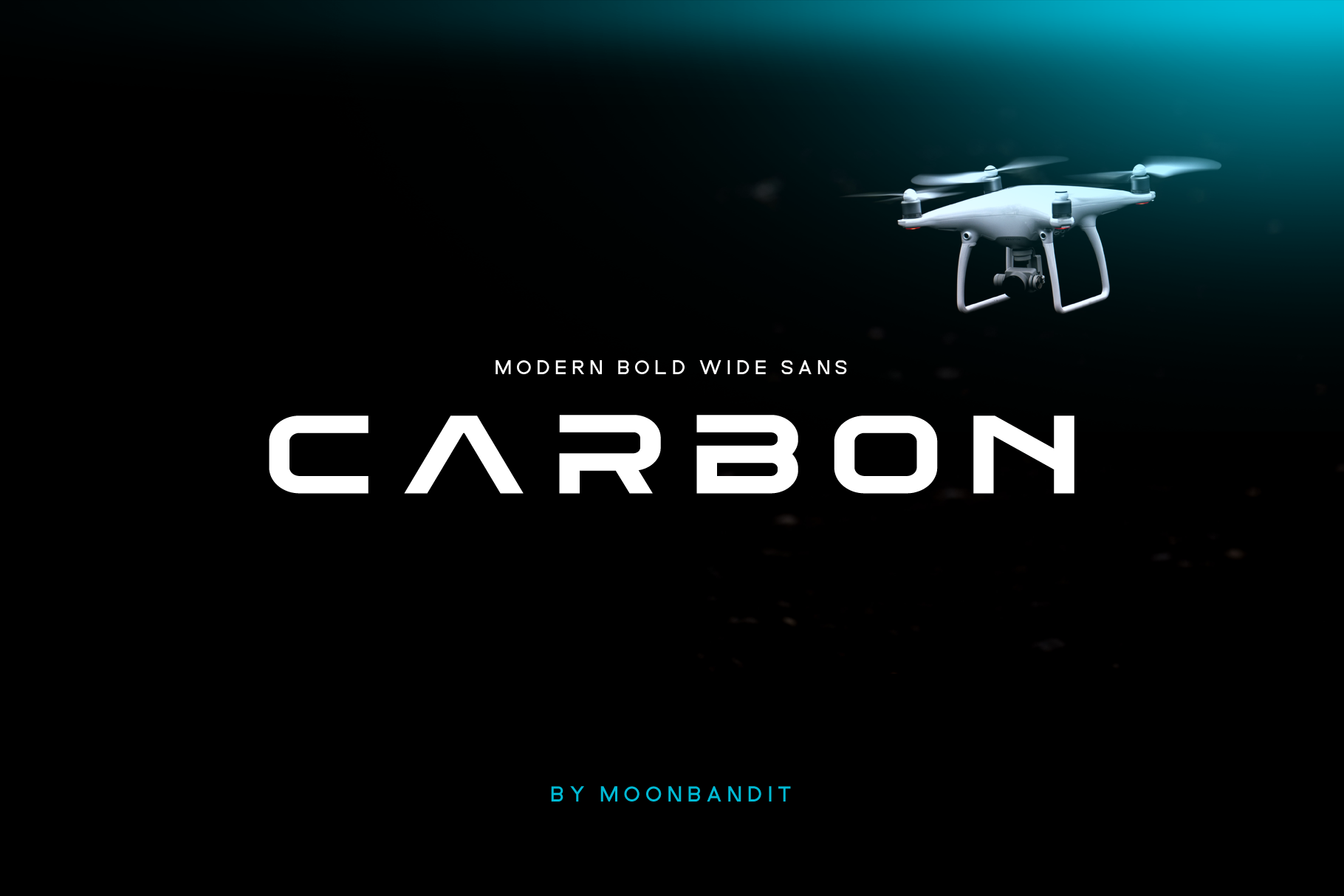
CARBON - modern minimalist font
Carbon is inspired by the modern gadget and technology, it is bold, sleek, perfect for technology or industrial theme.